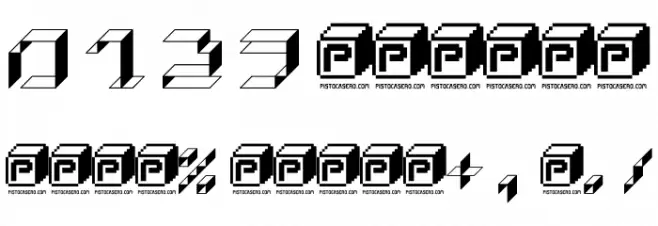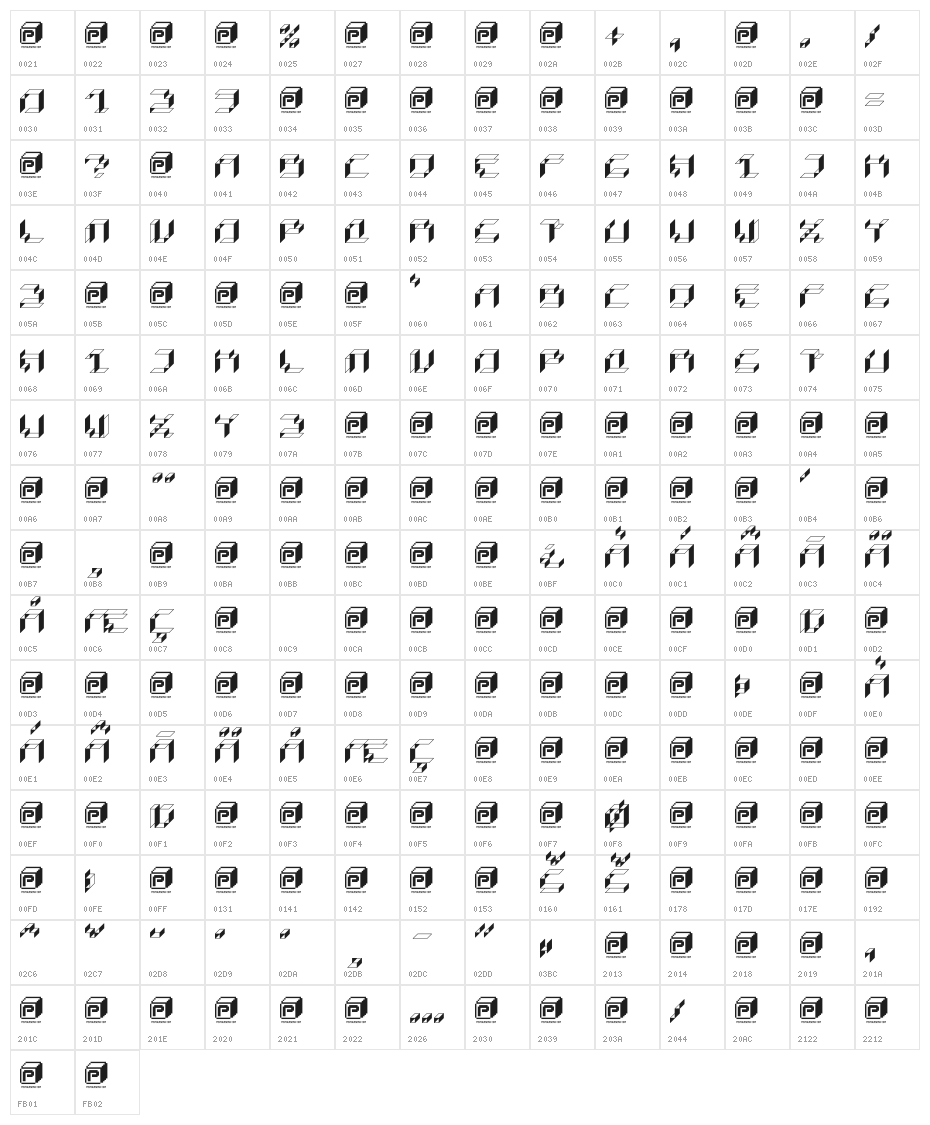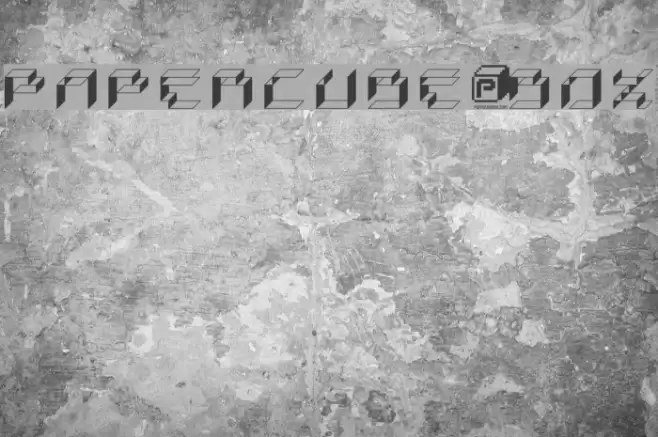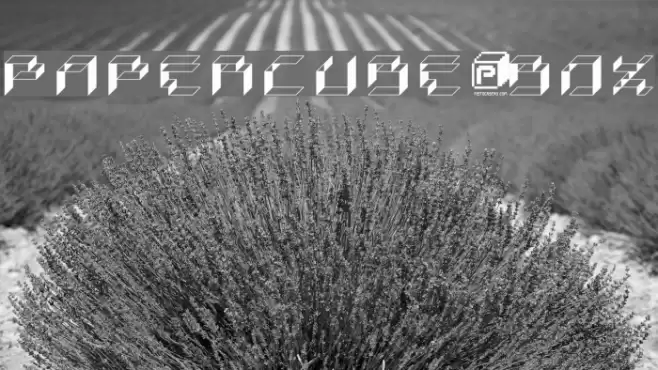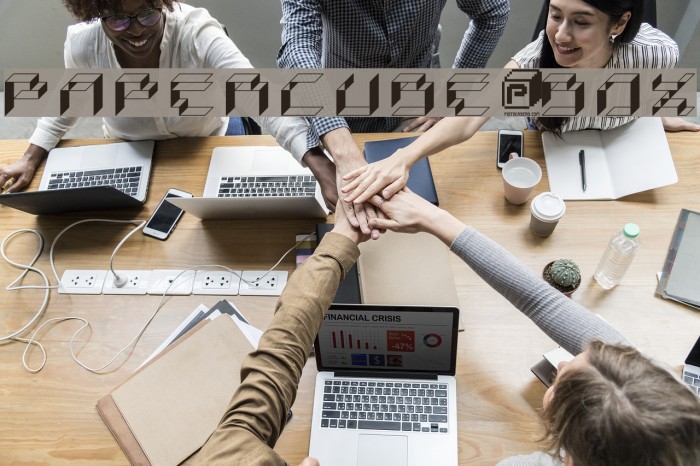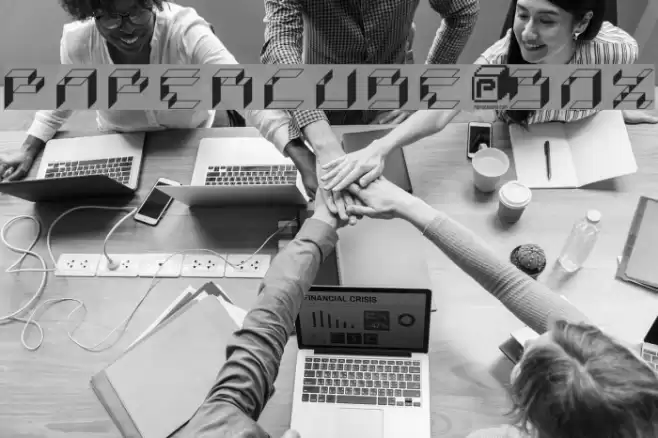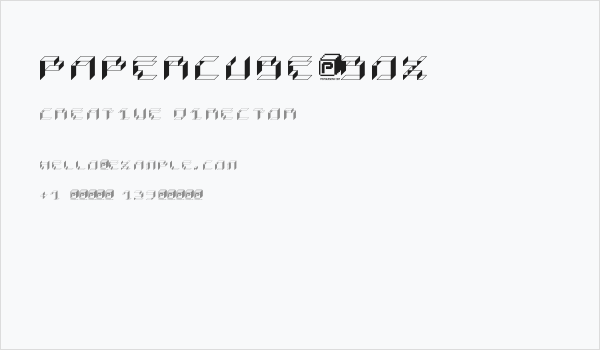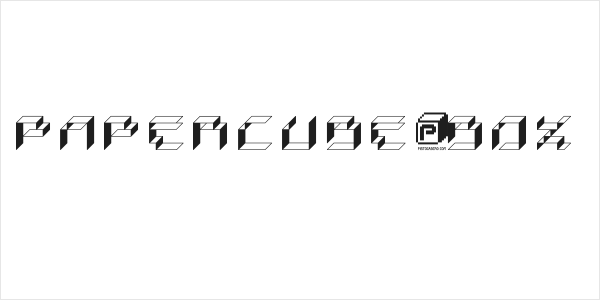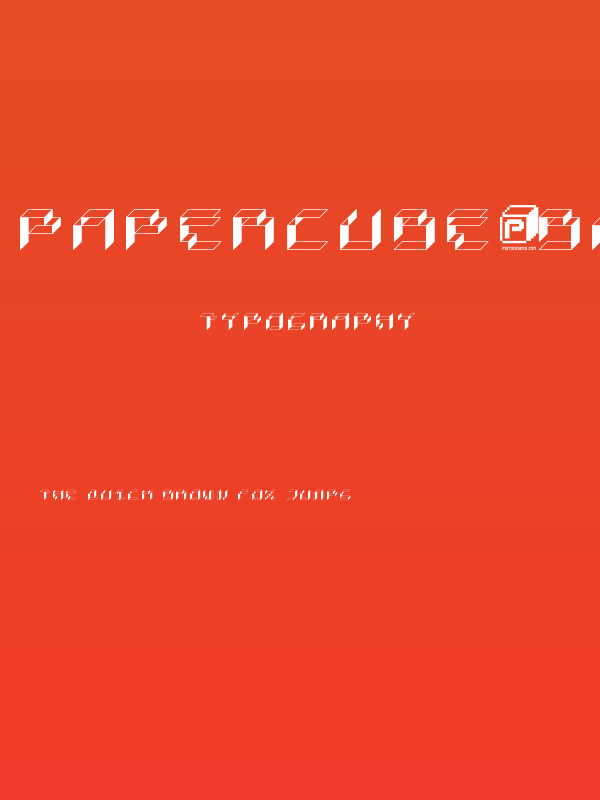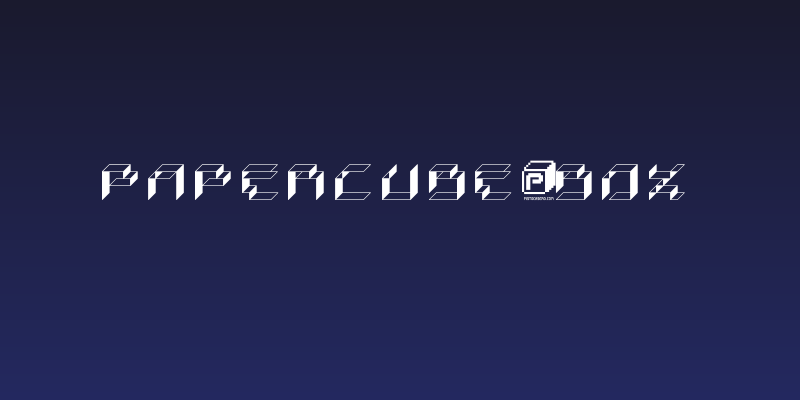
PaperCube-Box Font
PaperCube-Box Description
This font features a unique, three-dimensional geometric design that resembles folded paper or origami. Each character is constructed with sharp angles and clean lines, creating a bold and modern appearance. The use of shading and perspective gives the illusion of depth, making the letters appear as if they are popping off the page. This style is both eye-catching and innovative, suitable for projects that require a contemporary and artistic touch. The font maintains consistency across uppercase, lowercase, and numerical characters, with special symbols following the same design principles.